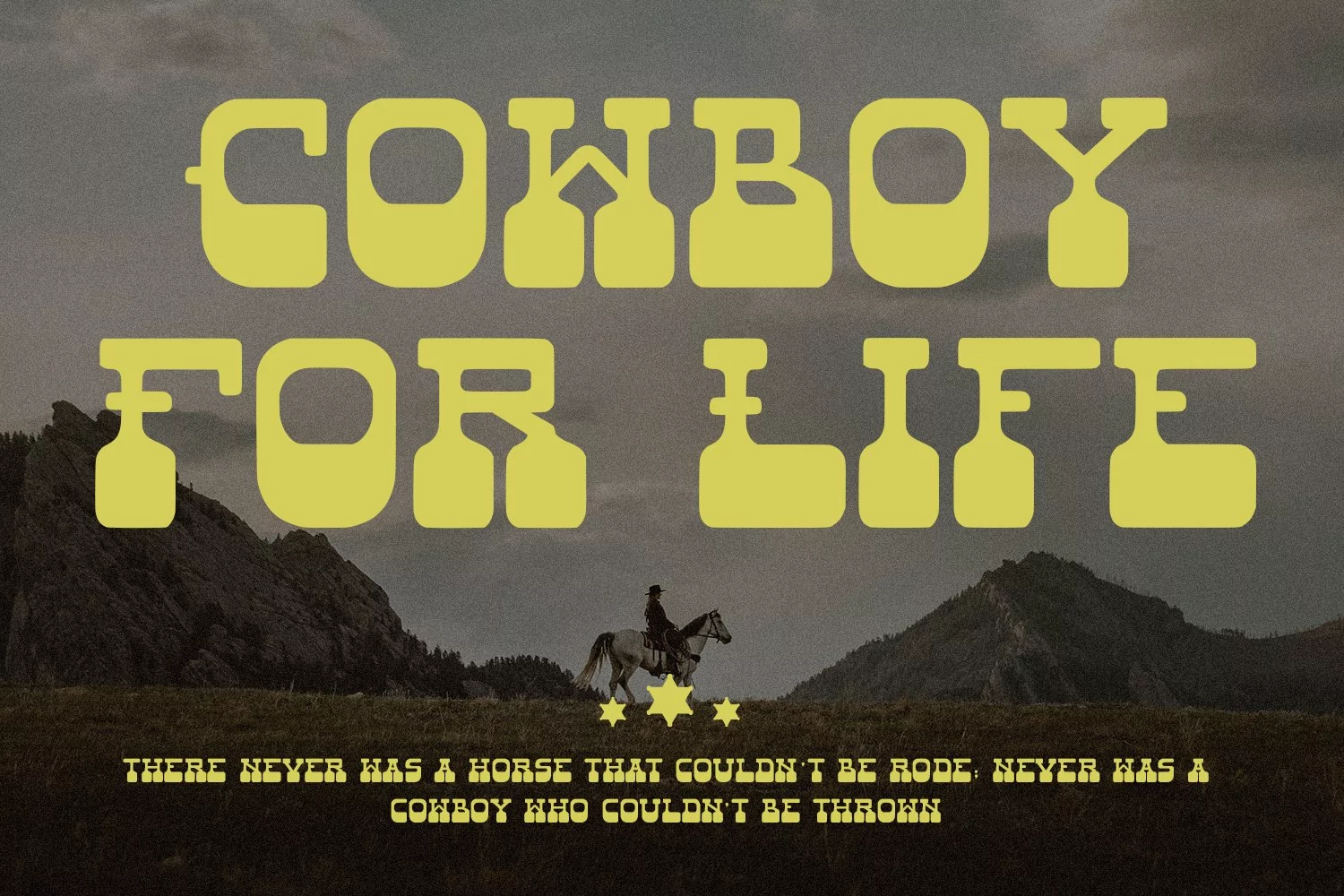
Presenting Wild Bullet Font - Western Display Font for Your Project. A perfect font which can be used for multiple purpose.
2- Super Creative Font.
Wild Bullet